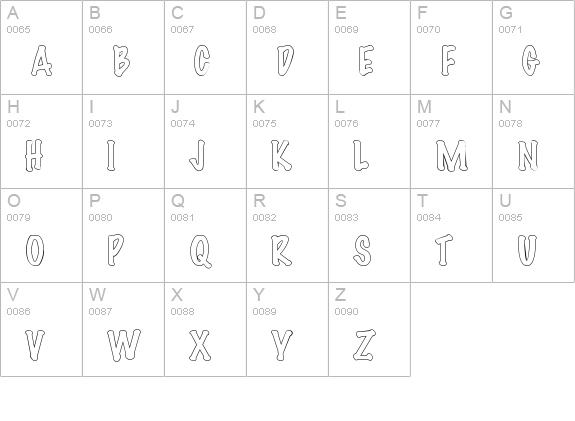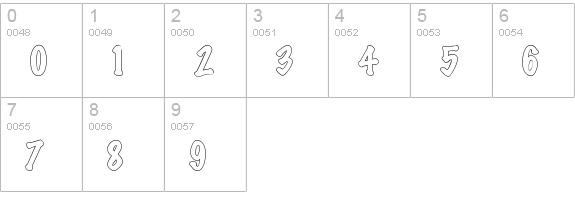
MarkerHollow Normal Font Details
MarkerHollow Normal is the standard, neutral variant in the MarkerHollow typeface family \xE2\x80\x94 well suited to general body text, paragraphs, and standard typographic work.
MarkerHollow Normal font is a charming and quirky typeface that adds a touch of playfulness to any design project. With its hand-crafted feel and uneven strokes, this font captures the essence of creativity and spontaneity. Its unique and distinctive style makes it perfect for adding a personal touch to logos, branding, posters, invitations, and more. The MarkerHollow Normal font features a wide range of characters, including uppercase and lowercase letters, numbers, punctuation marks, and special symbols, allowing you to create visually appealing and eye-catching designs. Its versatile nature makes it suitable for both digital and print applications, making it a must-have for designers and creatives alike. One of the best things about MarkerHollow Normal font is that it is available for free download at FontsMarket.com. This means that you can easily access and use this font in your projects without any additional cost. Whether you are a professional designer or a hobbyist, this font provides you with a valuable resource for adding a touch of whimsy and personality to your work. So why wait? Explore the endless possibilities that MarkerHollow Normal font offers and unleash your creativity. Download it for free at FontsMarket.com and start creating stunning designs that stand out from the crowd.